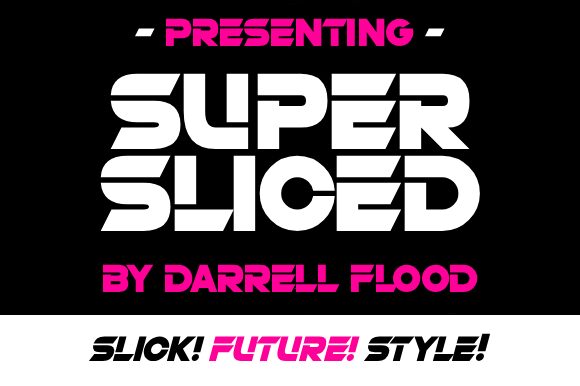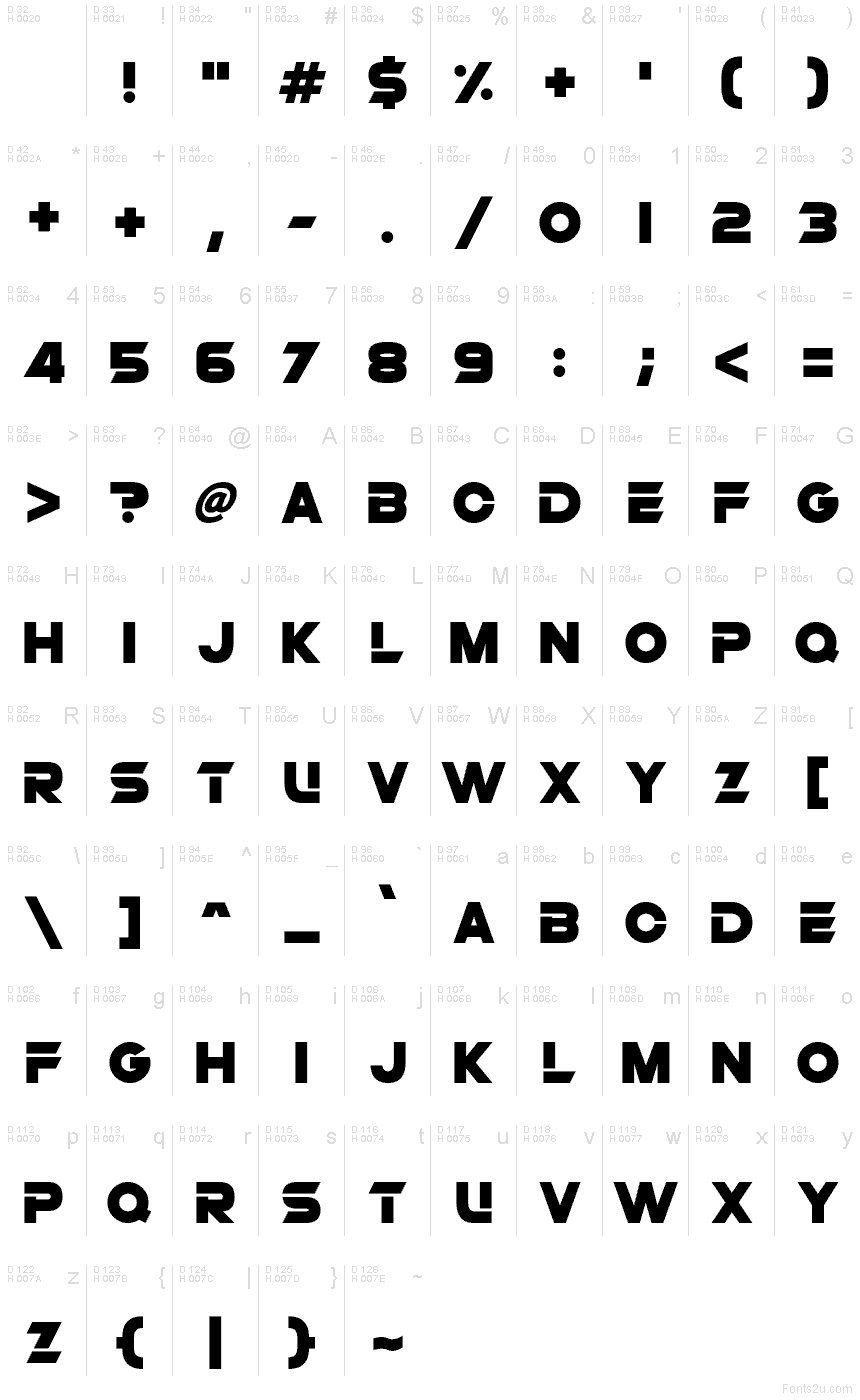
Super Sliced
Super Sliced font by Hawtpixel is a free futuristic display font. Built around bold geometric forms interrupted by razor-cut gaps, it turns simple blocks into kinetic letter shapes. The slices create a crisp rhythm that feels fast and engineered, while the chunky weight keeps it legible and unmistakable at a glance.
Using Super Sliced, headlines snap with a cyber‑tech vibe—think esports branding, sci‑fi posters, game titles, tech product launches, UI hero banners, and merch. This free font shines when set large with a touch of extra tracking. Pair it with a neutral sans for body copy to let those sharp cuts do the talking.